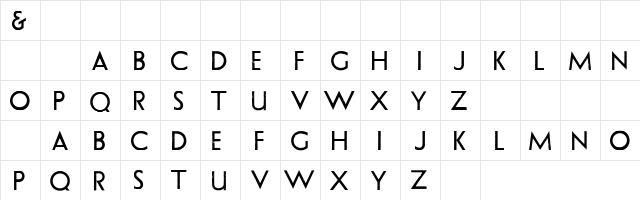
URANIUM MAFIA Regular
| Foundry | Billy Argel |
| Designer | Billy Argel |
Design Context for URANIUM MAFIA Typeface
URANIUM MAFIA offers clean, dependable letterforms without strong stylistic allegiance, making it a practical choice for designers who need flexibility.